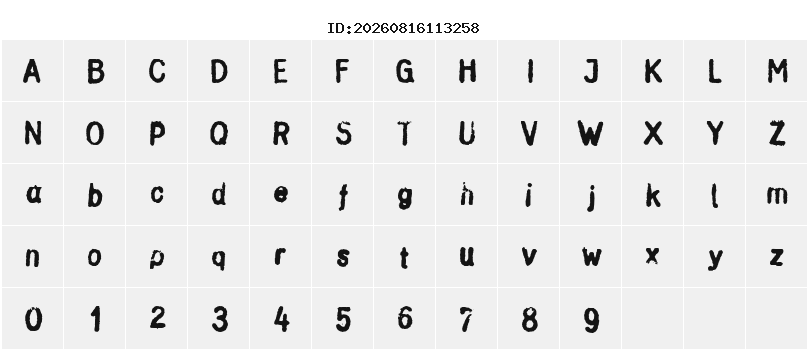
• Font Name: StampGothic
• Full Font Name: StampGothic
• PostScript Name: StampGothic
About StampGothic.ttf
StampGothic.ttf is a modern, elegant sans-serif font designed for ultimate readability and visual harmony. Perfect for branding, headlines, web design, and print materials.